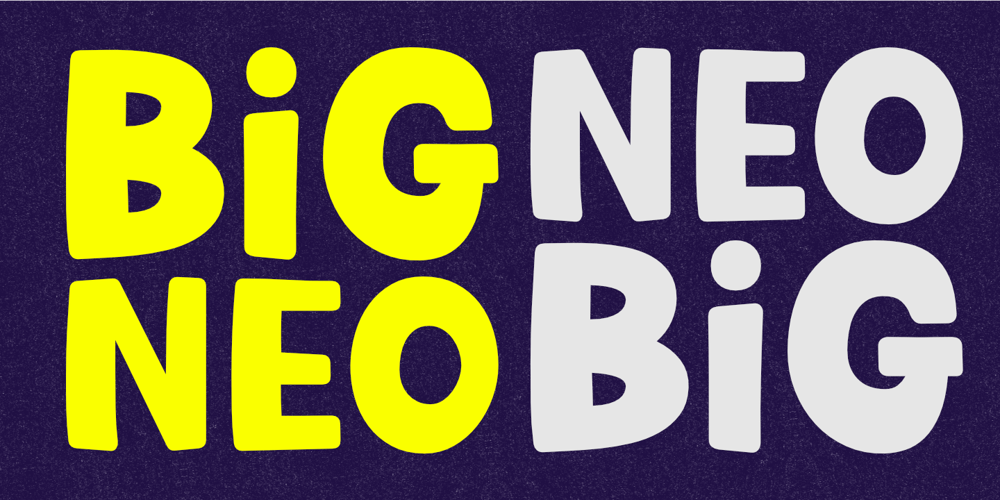
Big Neo
Big Neo font
Big Neo Font Family was designed by Aldy Sidik, Nurul Hidayani and published by Olivetype. Big Neo contains 1 styles and family package options. Big Neo is a carefree and colorful typeface with a youthful and fun vibe. It’s great for creating a happy mood in your designs. You can use it for logos, business cards, posters, headlines, T-shirts, blogs, product packaging, and more.Make your design stand out with Big Neo!So what’s included : Basic Latin Uppercase and Lowercase Numbers, symbols, and punctuations Multilingual Support. Accented Characters : ÀÁÂÃÄÅÆÇÈÉÊËÌÍÎÏÑÒÓÔÕÖØŒŠÙÚÛÜŸÝŽàáâãäåæçèéêëìíîïñòóôõöøœšùúûüýÿžß PUA Encoded and fully accessible without additional design software Simple Installations works on PC & Mac Thank You and Happy Designing!